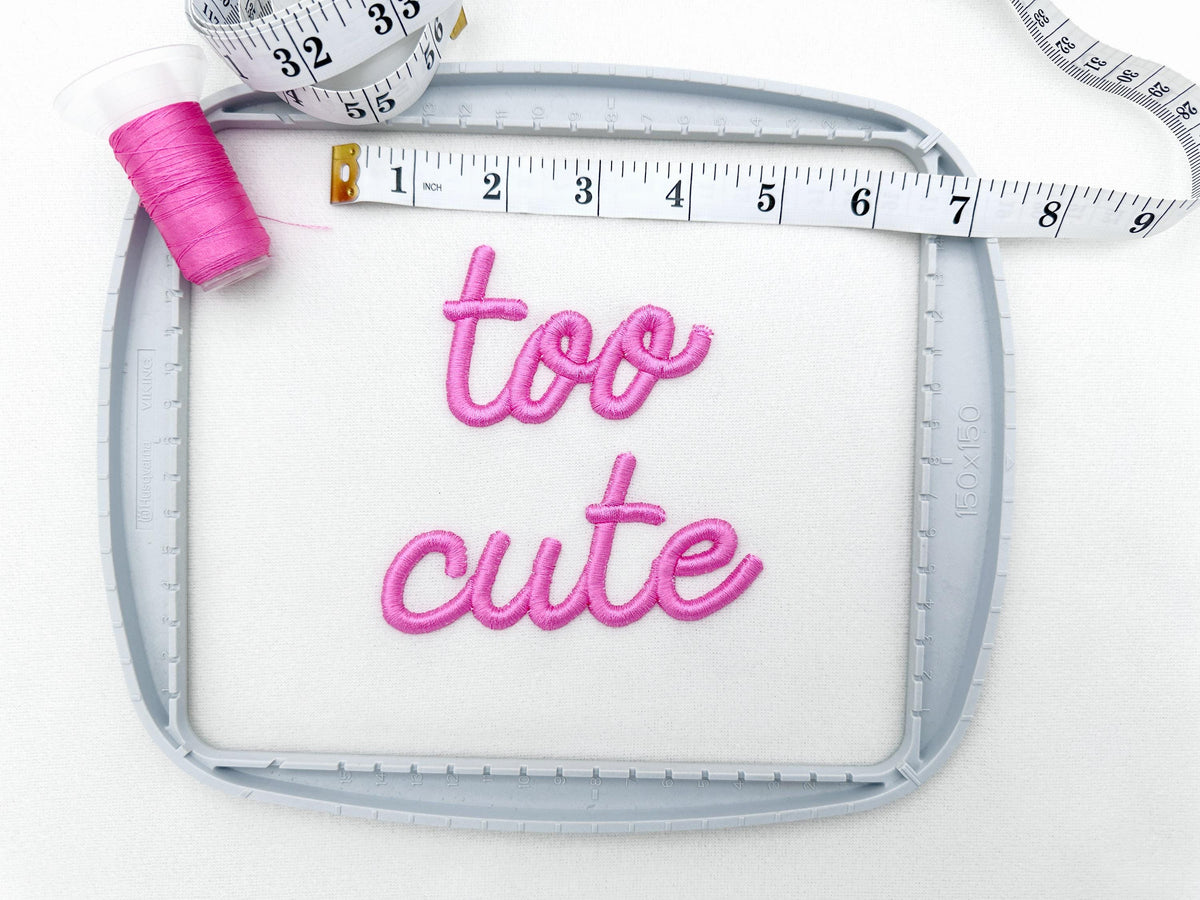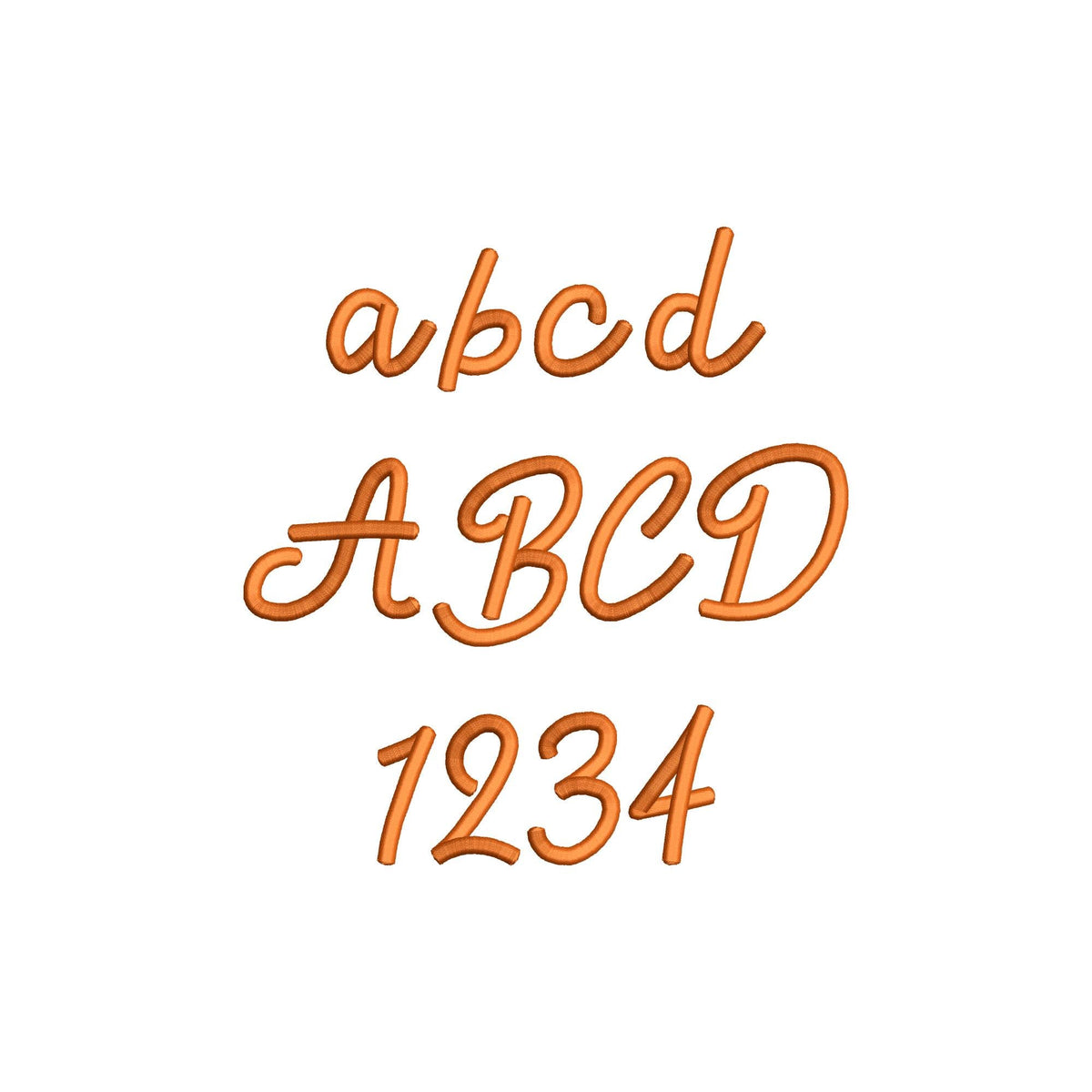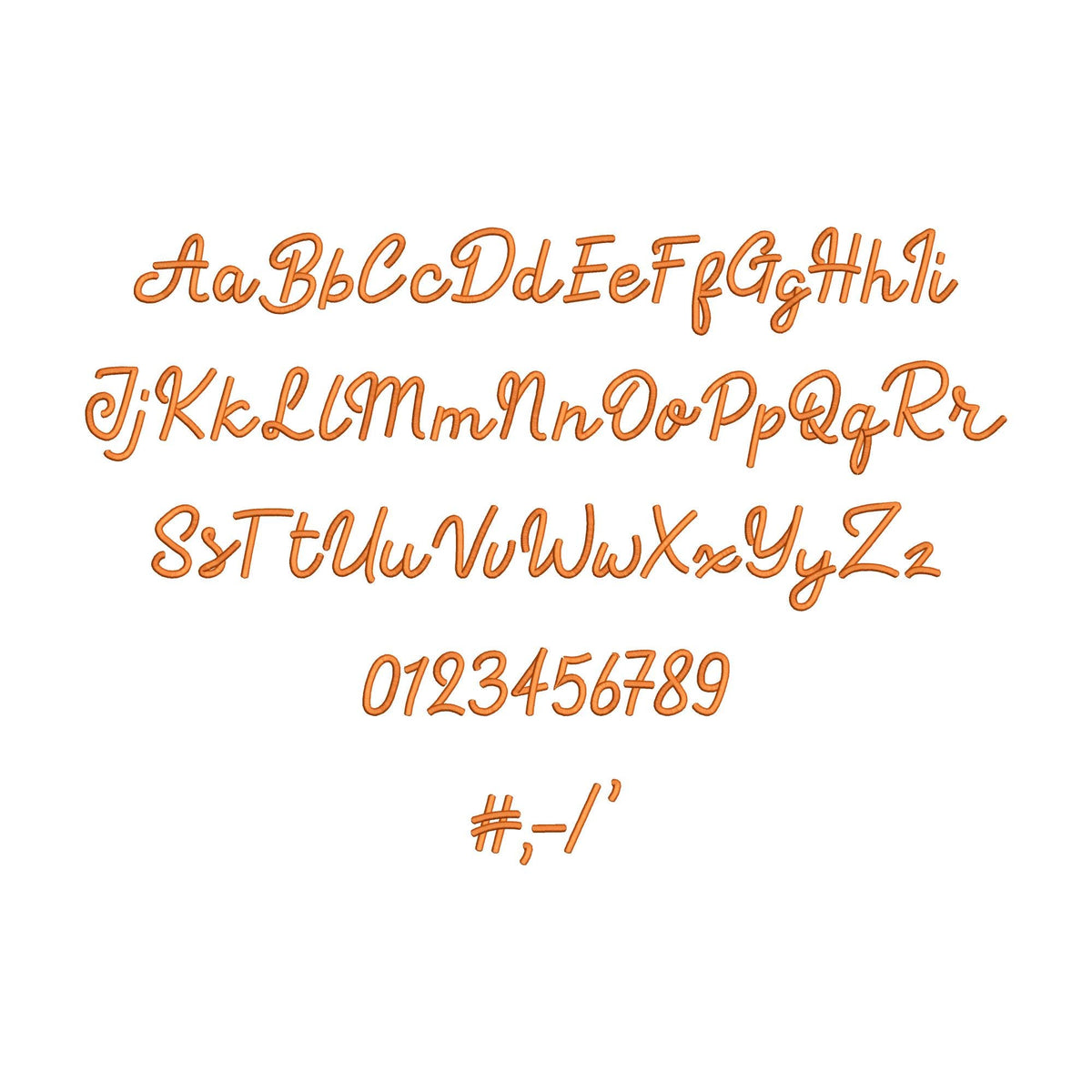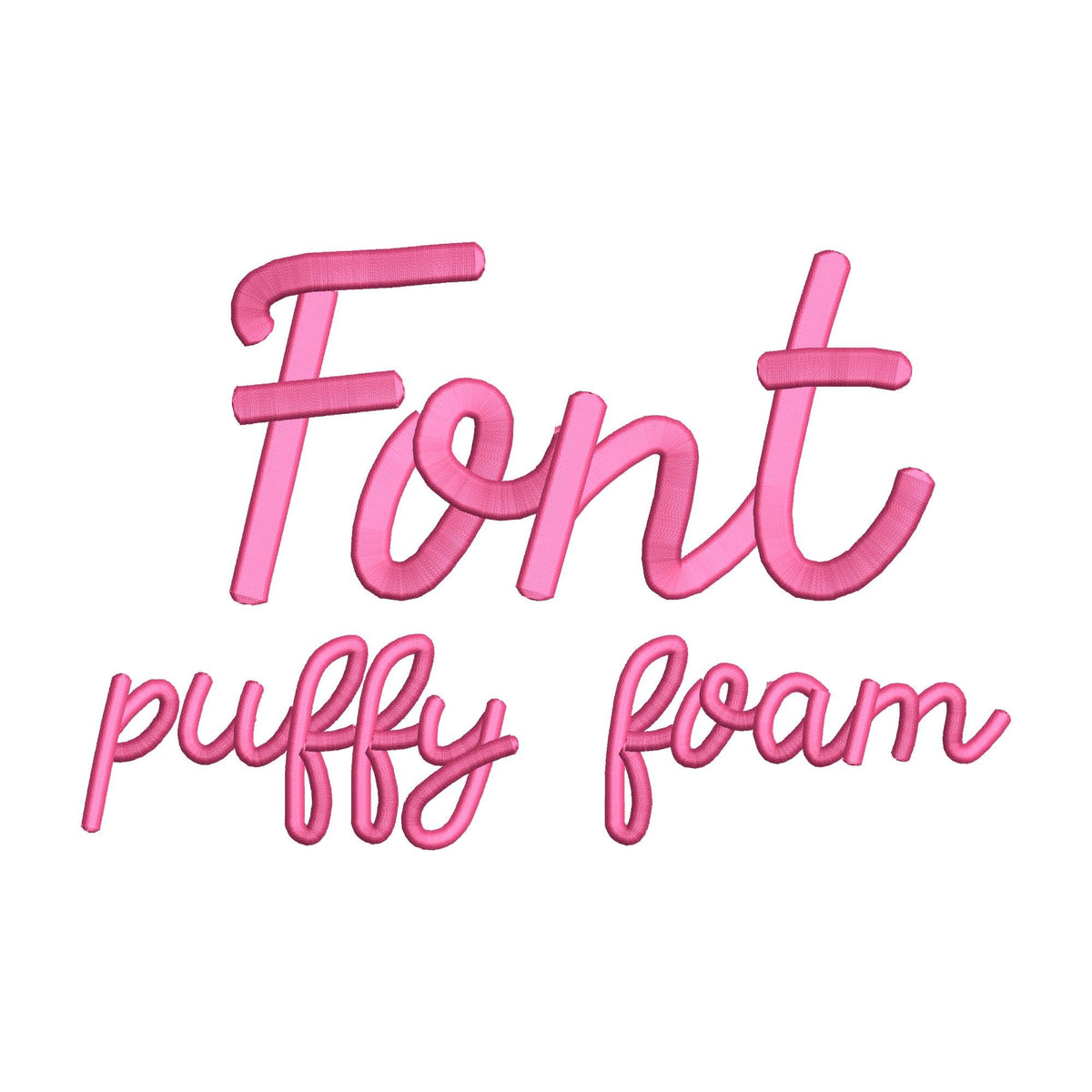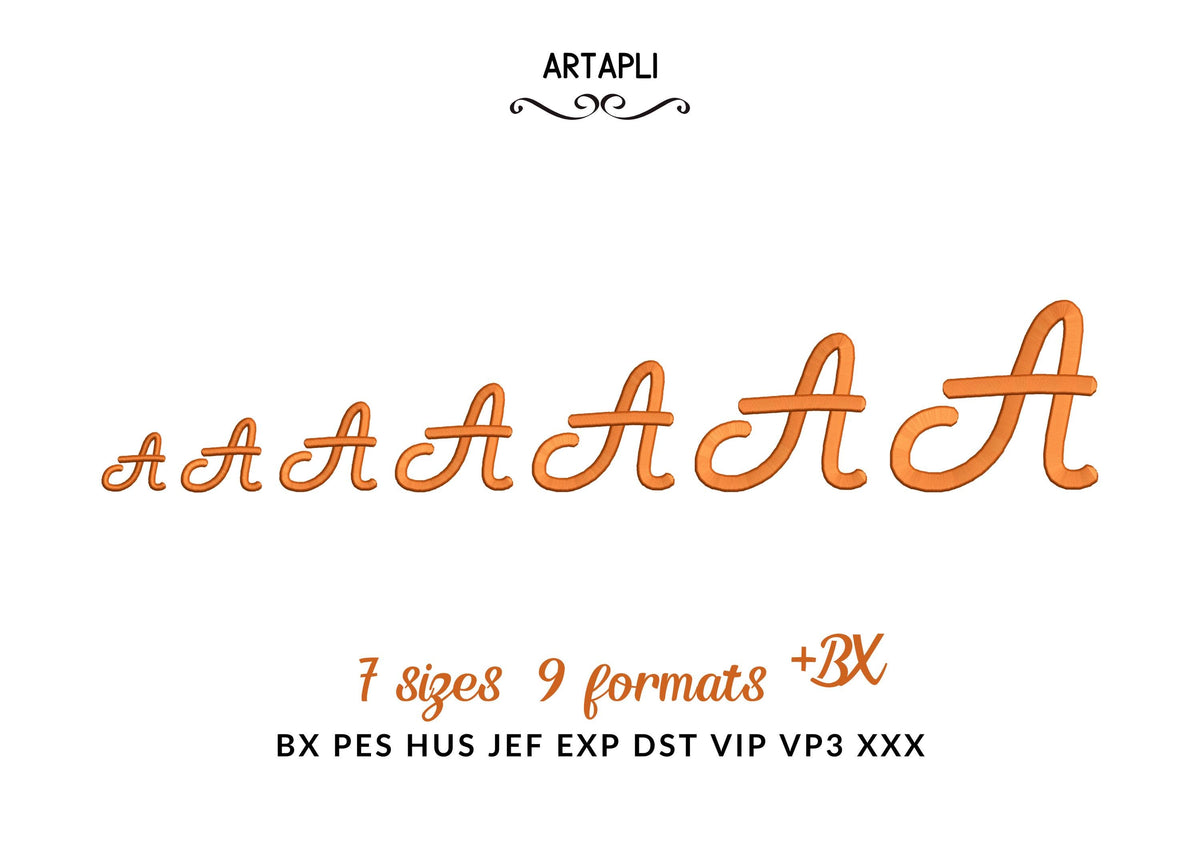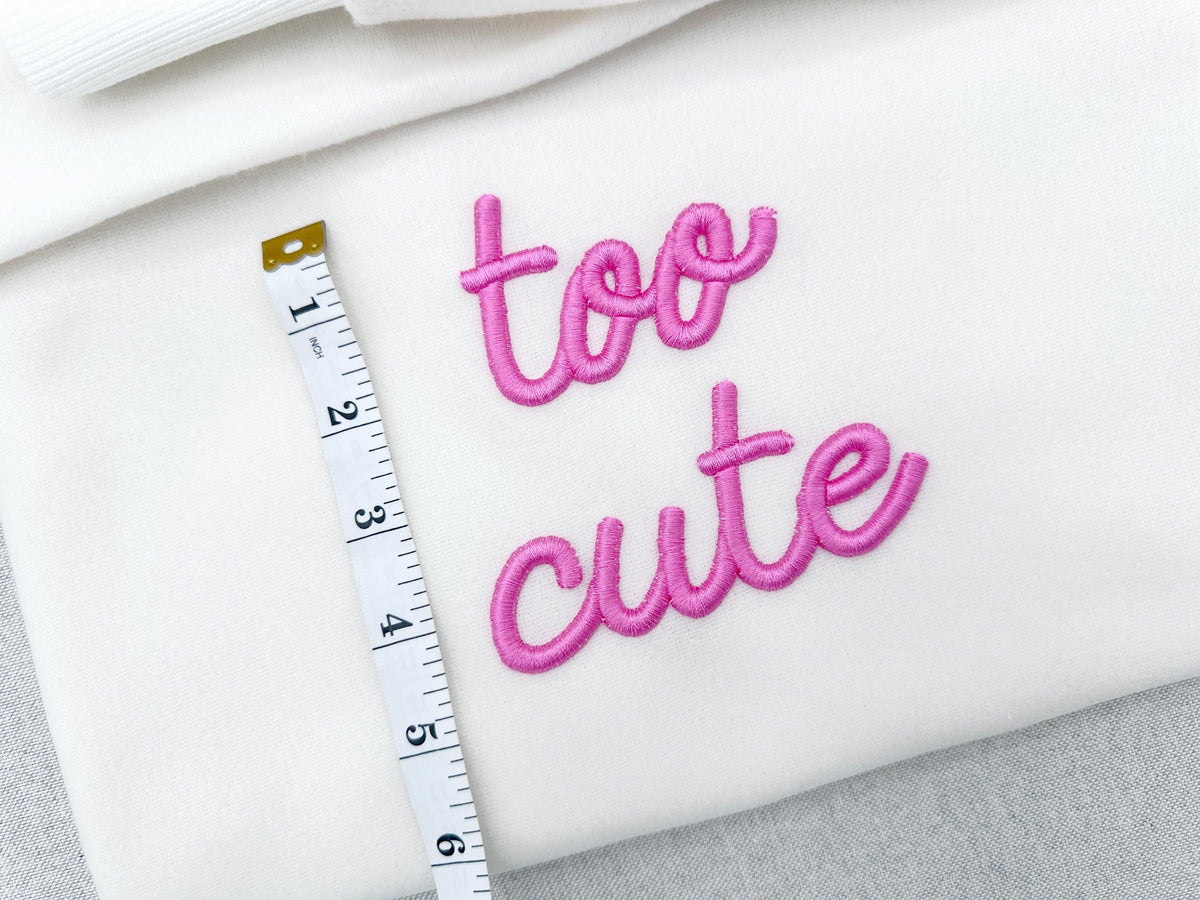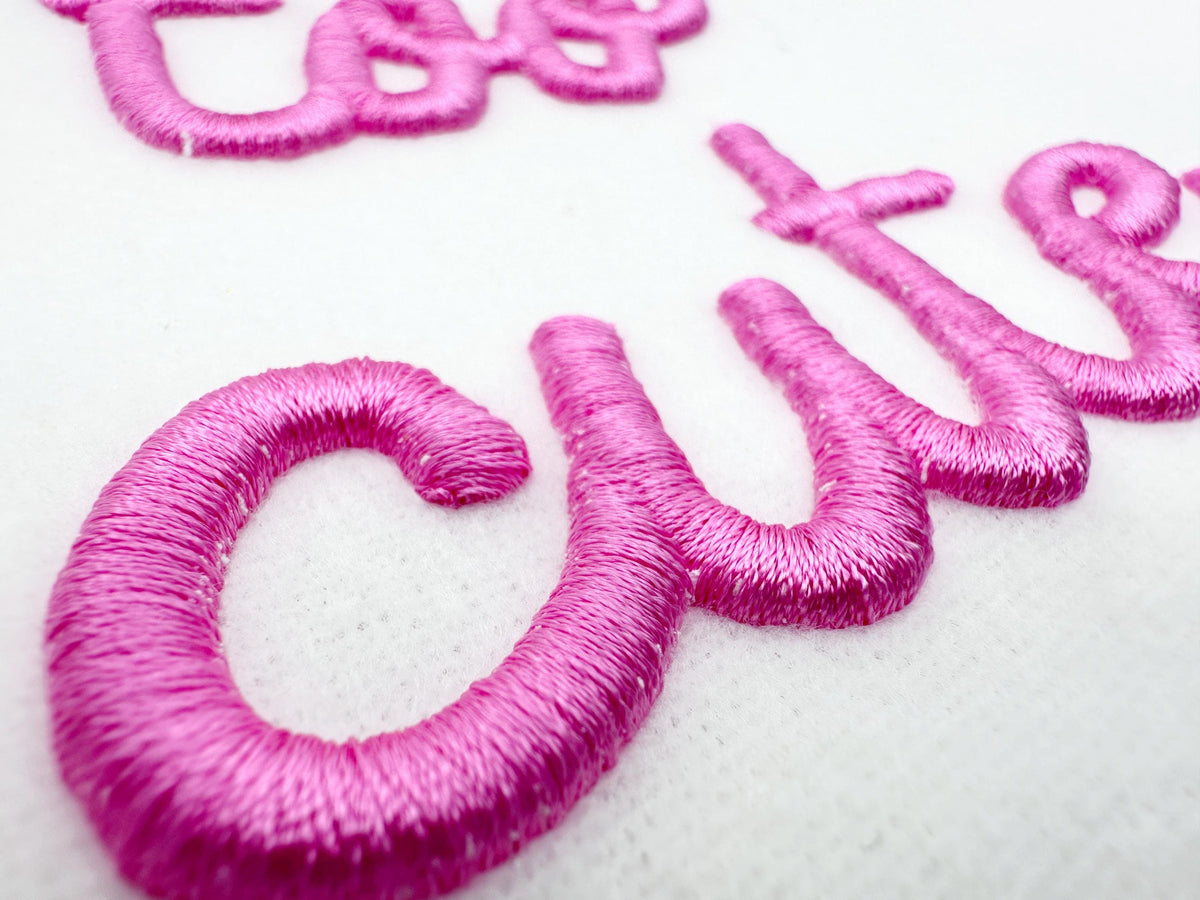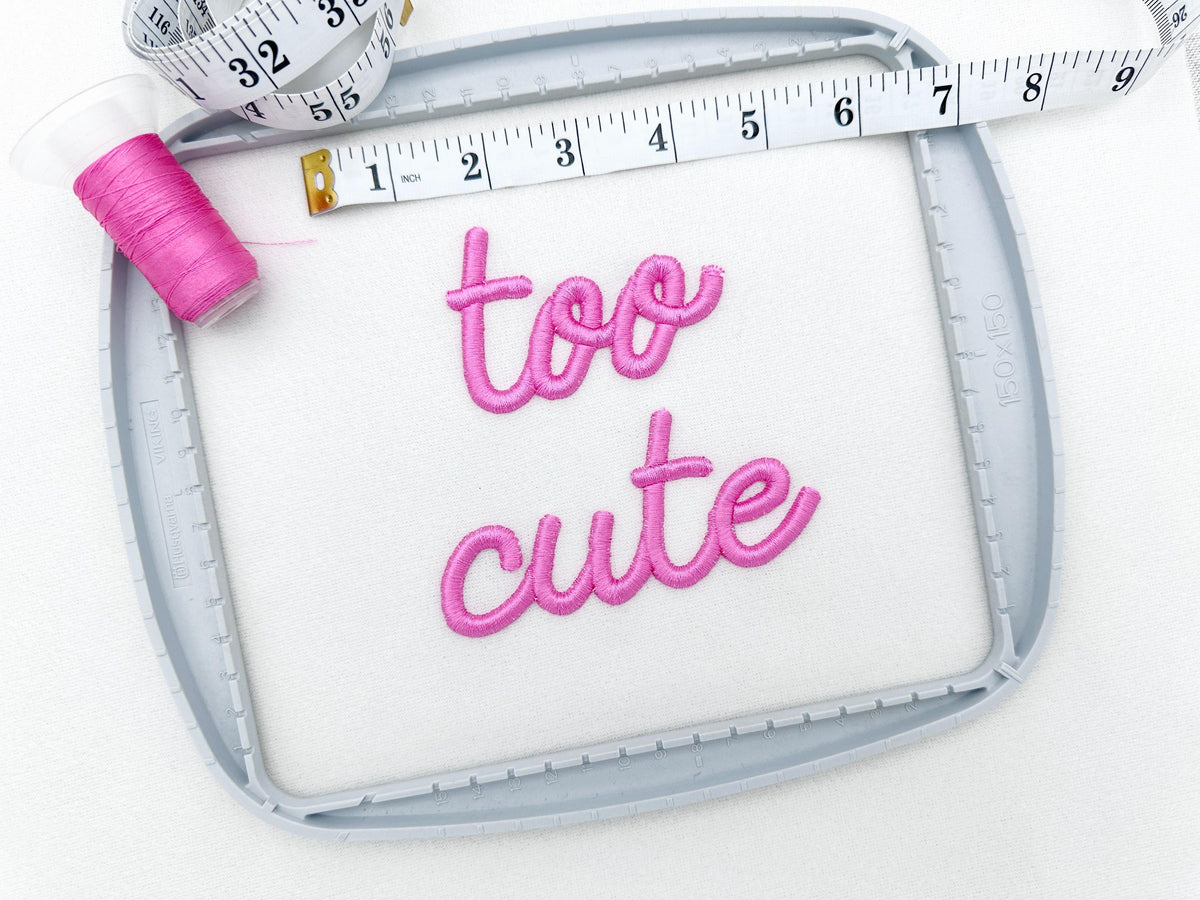
Puffy Pop Font
Or click to open the linkPuffy Pop is a raised 3D script font stitched over puffy foam. Bold and fun for caps, sweatshirts, jackets, bags and names.
Seven sizes: 1.3, 1.7, 2.1, 2.5, 3, 3.6 and 4.4 inches. The alphabet has uppercase and lowercase letters A-Z, numbers 0-9 and punctuation. You need 3 mm embroidery puffy foam for the raised look.
- Puffy foam script alphabet, uppercase and lowercase A-Z
- Numbers 0-9 and punctuation
- 7 sizes, 1.3 to 4.4 in